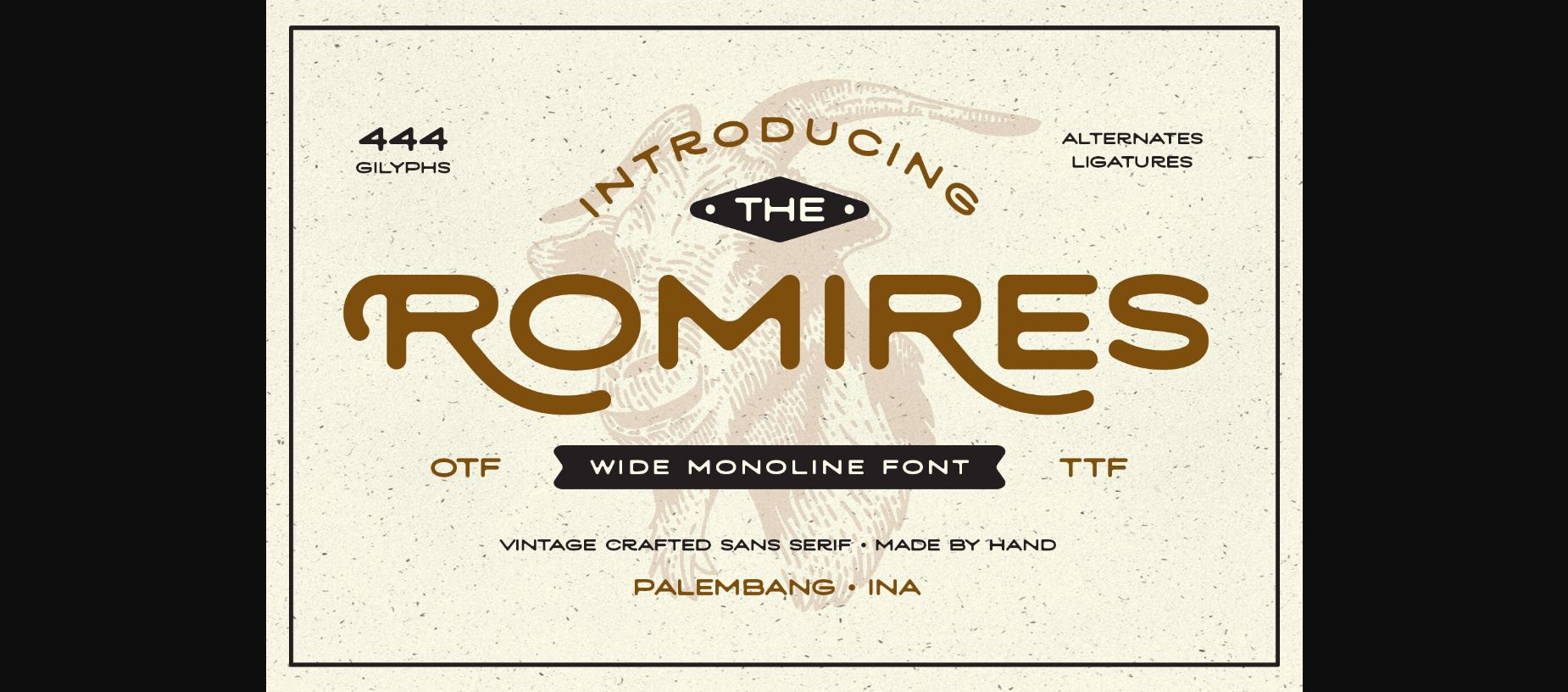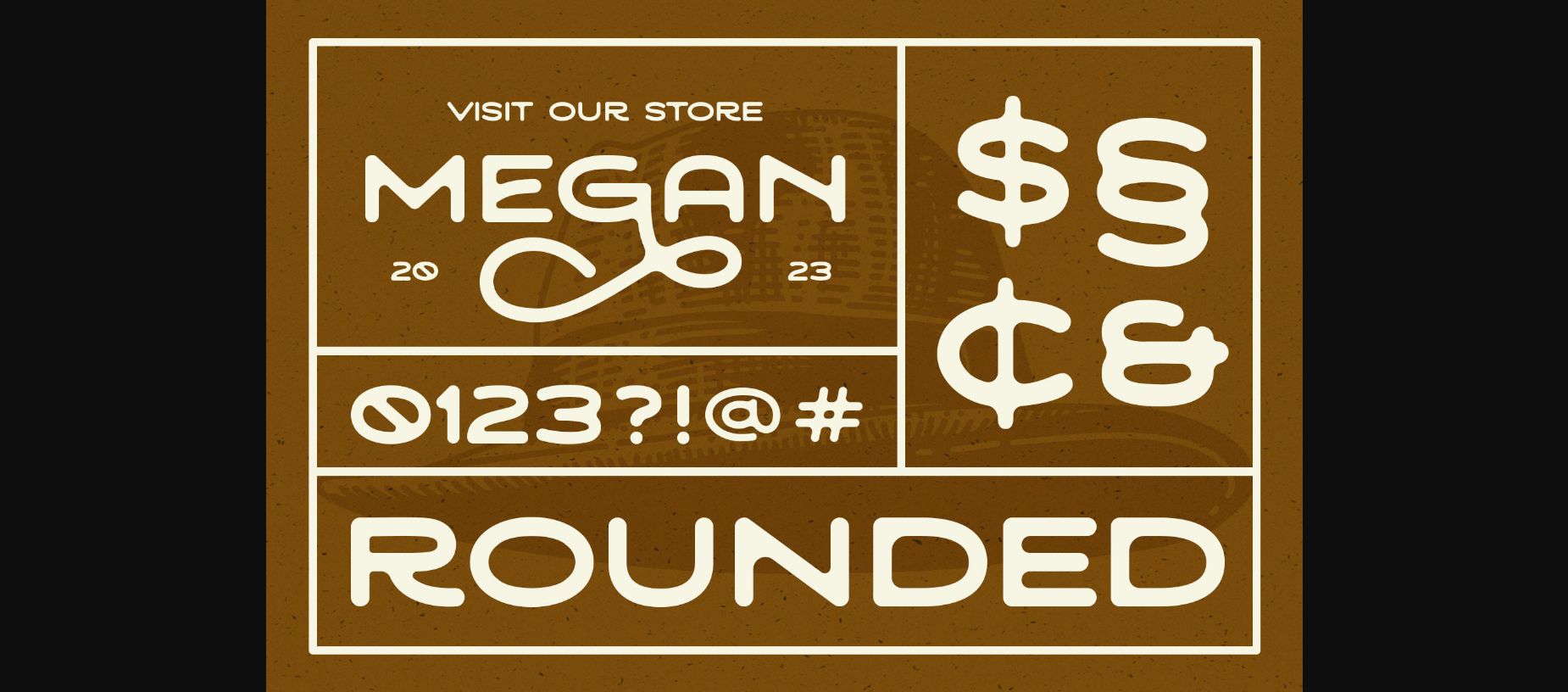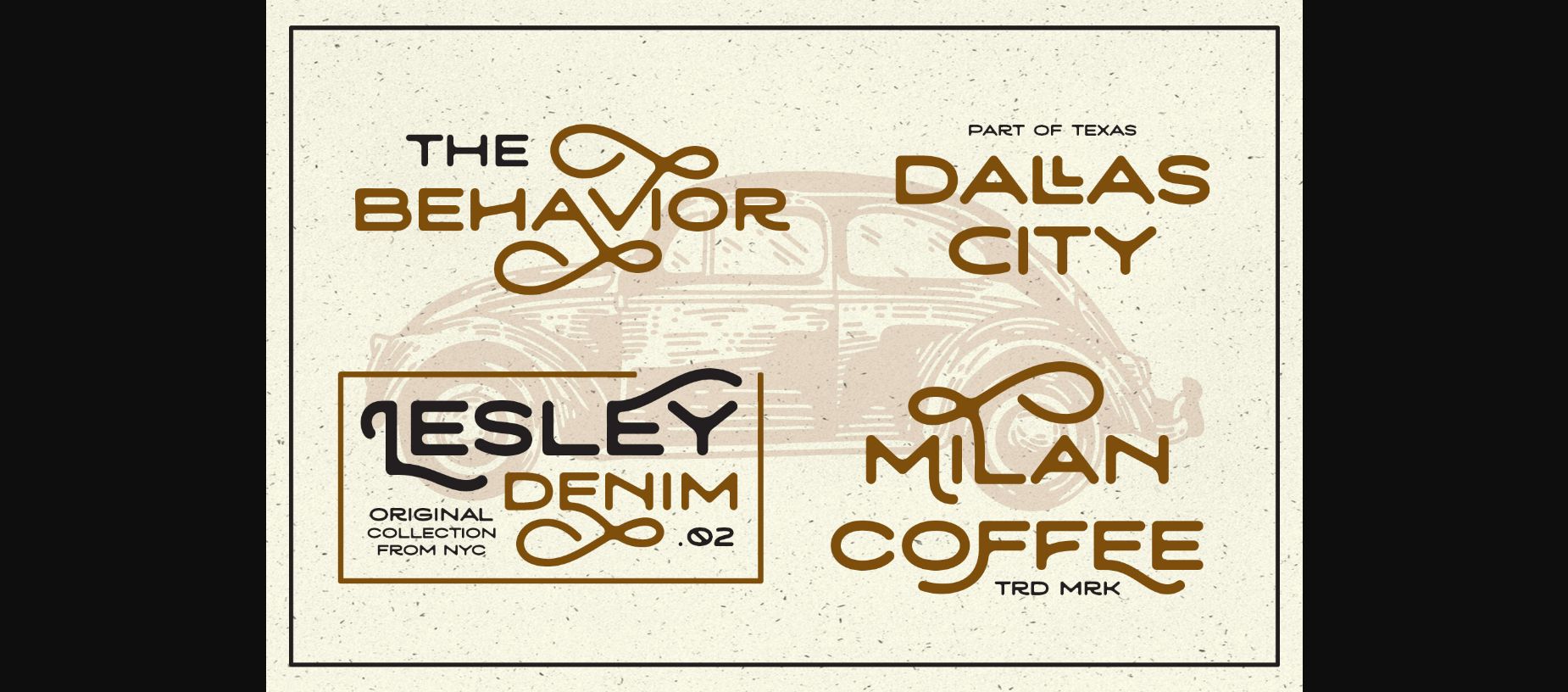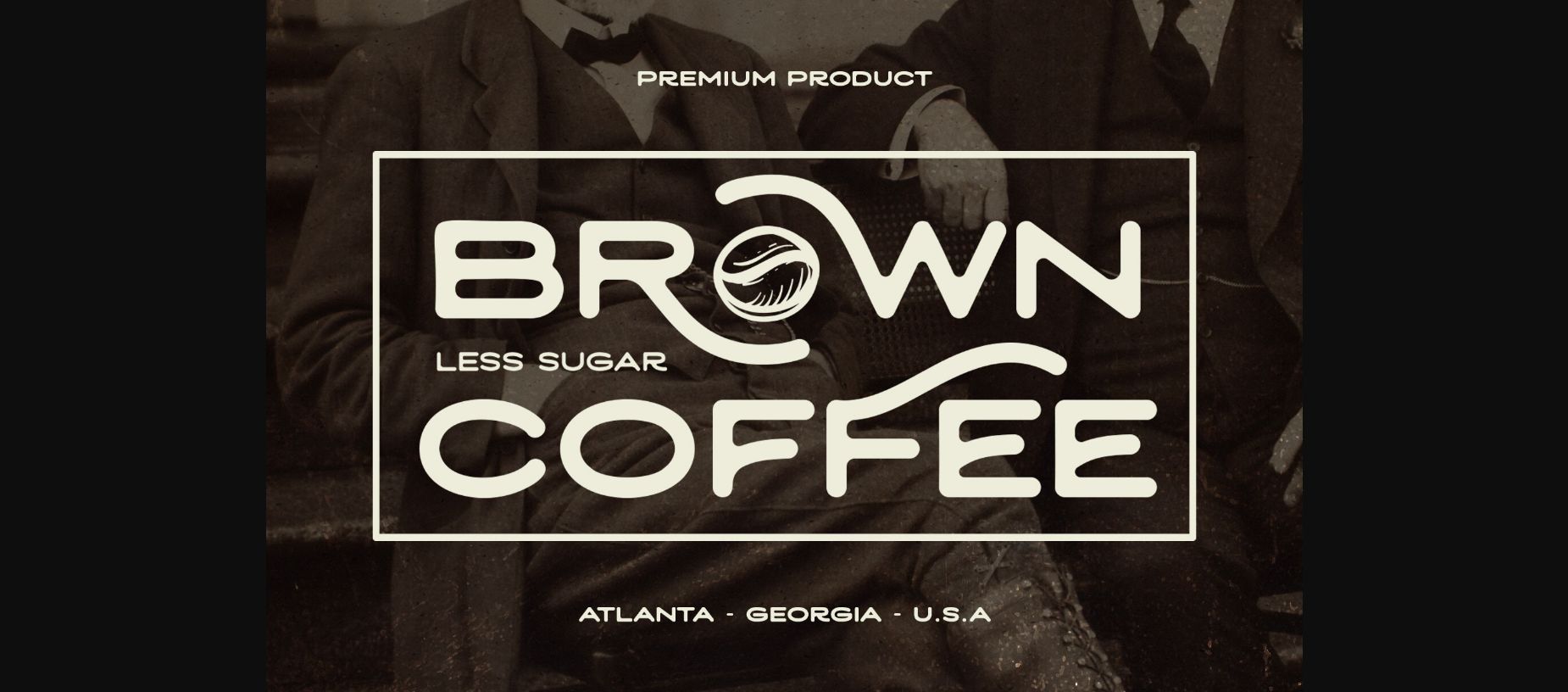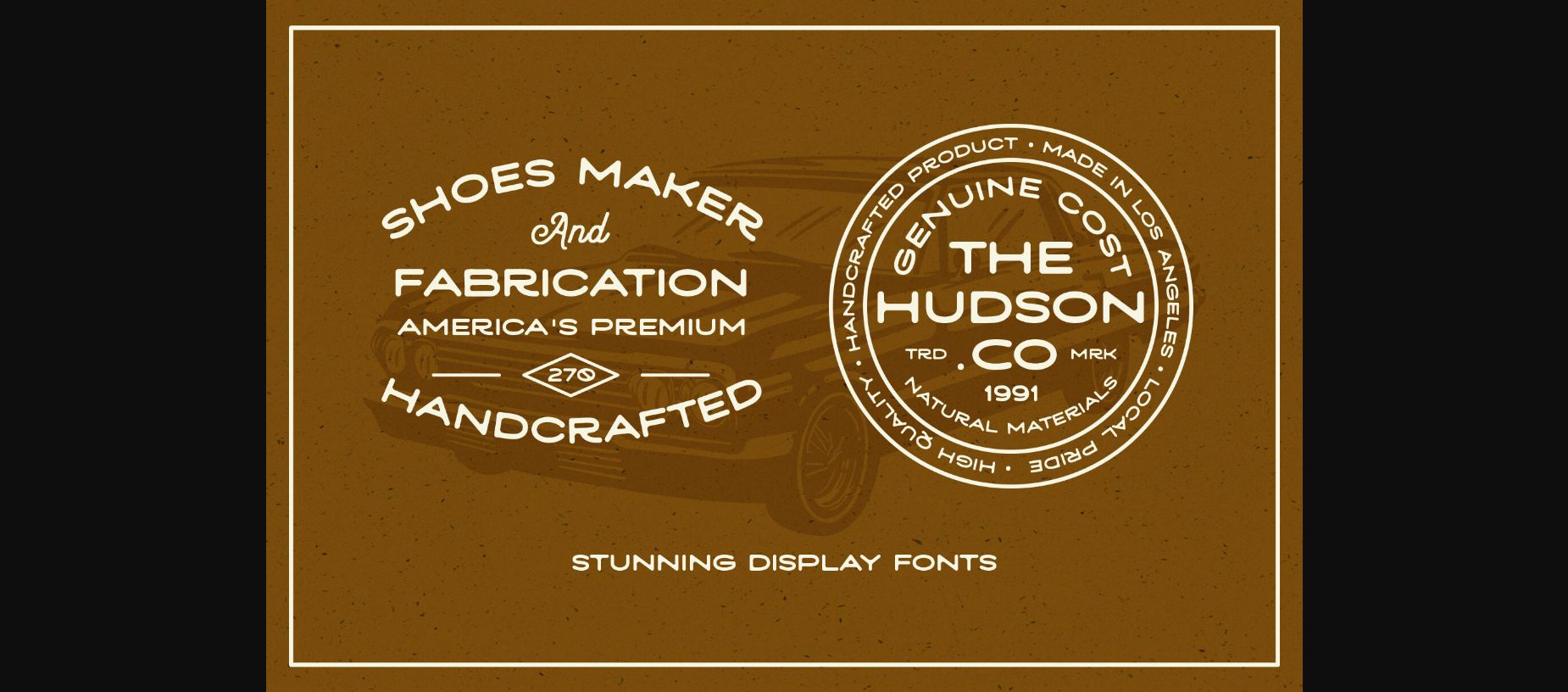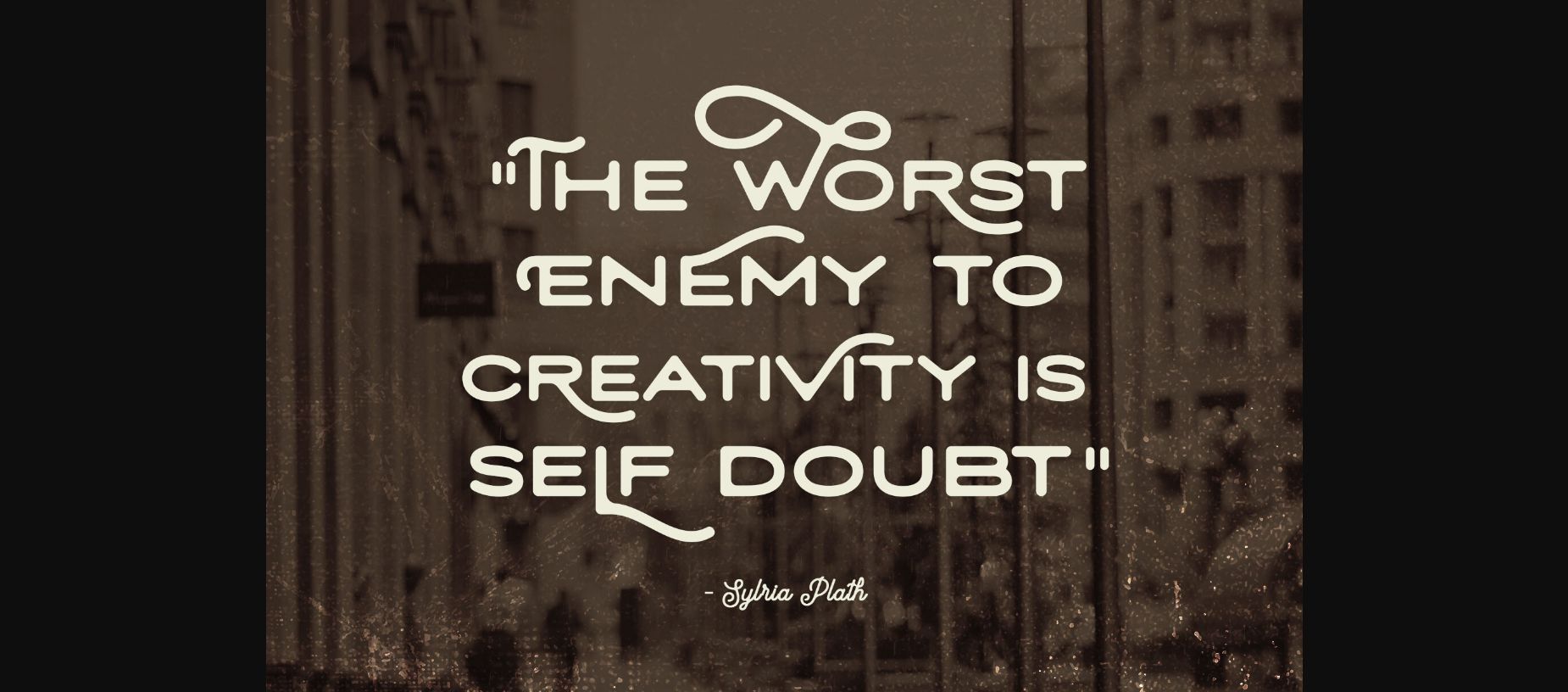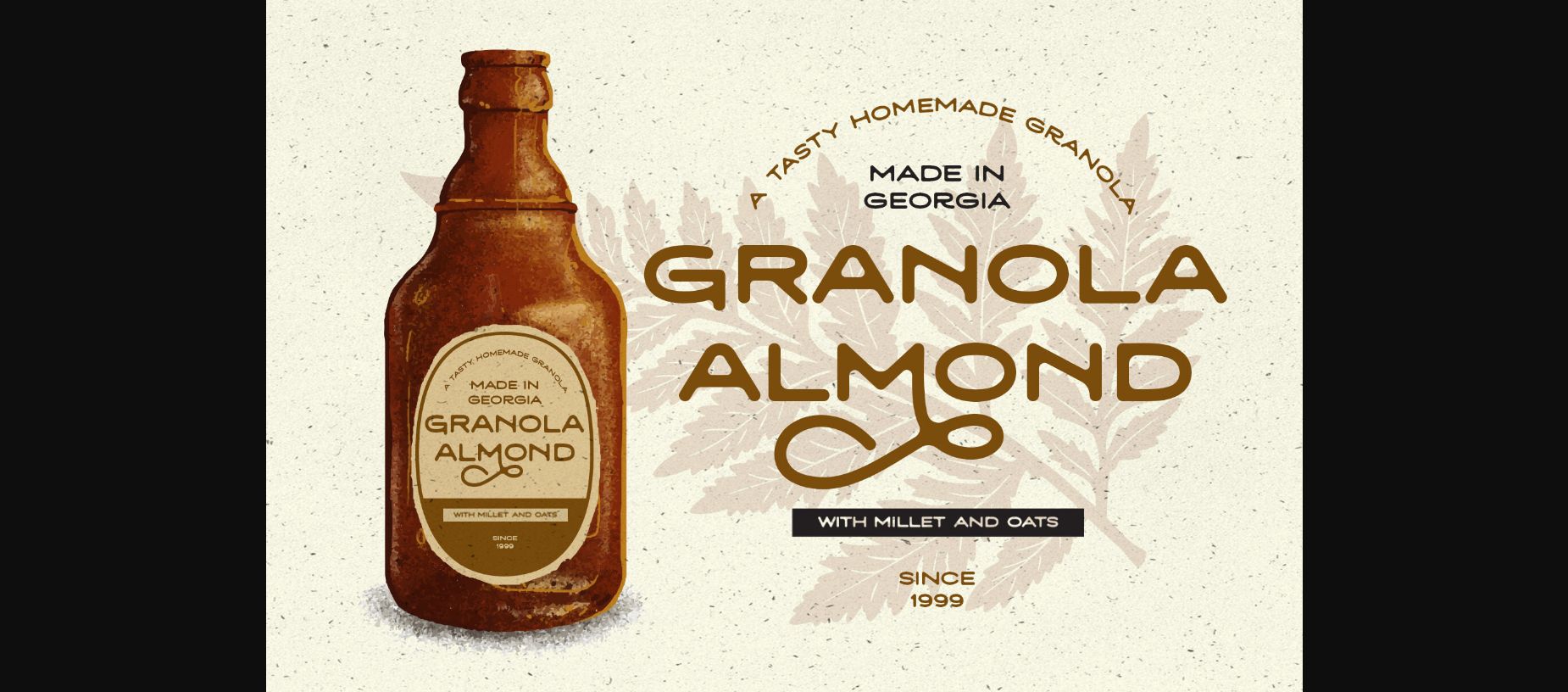
About Romires Font
Introducing Romires – a monoline font with wide letterforms and an inky letterpress effect. This font is inspired by old-school design and is perfect for creating designs with a natural, classic touch.
Romires font includes special characters, swashes, and multilingual support, making it a versatile choice for a range of projects. Whether you’re designing labels, t-shirts, storefronts, or logotypes, this font can be used for both headlines and long text. Get your hands on Romires and start creating stunning designs today.